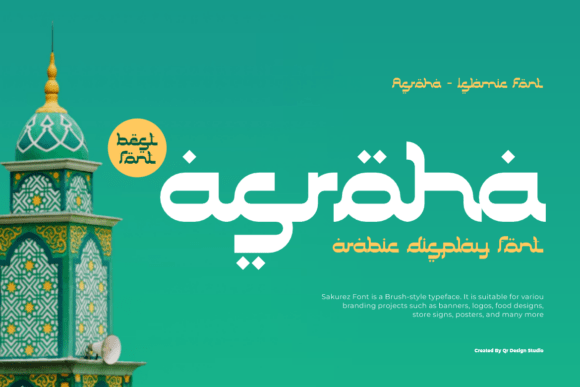
The Designer’s Delight: Asroha Font
I’ll never forget the time I was working on a branding project for a Middle Eastern client, and I was struggling to find the perfect font that would capture the essence of their Arabic heritage. The client was specific about wanting a font that was not only visually stunning but also authentic in its representation. After hours of scouring through font libraries, I stumbled upon Asroha Font, and it was love at first sight! 💫
Asroha is an Arabic-style display font that has become a staple in my design toolkit. Its unique blend of traditional and modern elements makes it perfect for various branding projects, such as logos, Arabic designs, and more. In this article, I’ll share my honest review of Asroha Font, provide a practical guide on how to use it, and explore similar fonts that you might love.
Honest Review: What I Love and What I Don’t
The Good ✨
- ✅ Unique and authentic Arabic-style design
- ✅ Highly legible and versatile
- ✅ Supports OpenType features and glyphs
- ✅ Perfect for display and headline use
The Not-So-Good 🤔
- ⚠️ Limited use for body text due to its display nature
- ⚠️ May require additional kerning adjustments for optimal spacing
The Story Behind Asroha Font
Asroha Font was designed with the intention of creating a unique and authentic Arabic-style display font that would cater to the needs of designers and creatives. The font’s creator drew inspiration from traditional Arabic calligraphy and typography, while incorporating modern elements to make it more versatile and legible.
| Font Name | Asroha Font |
| Author | qrdesignstd |
| What is Asroha Font? | Asroha Font is an Arabic-style display font designed for branding projects, logos, and Arabic designs. |
| Does Asroha Font support OpenType features? | Yes, Asroha Font supports OpenType features and glyphs, making it a versatile and powerful font for designers. |